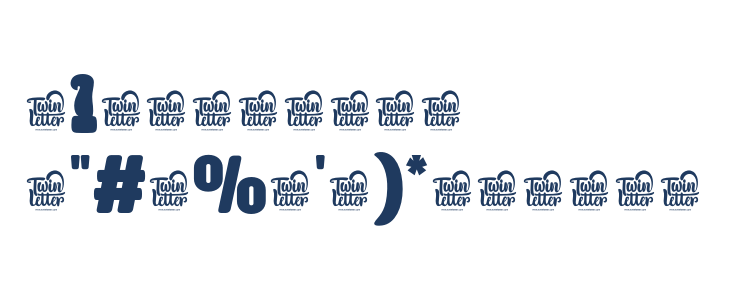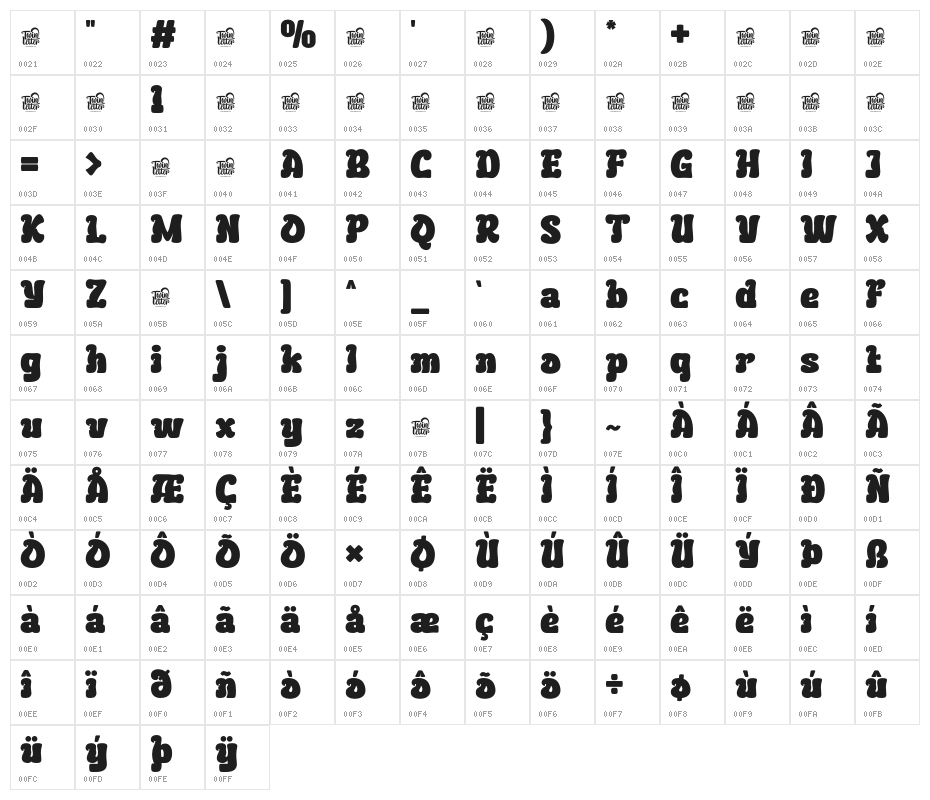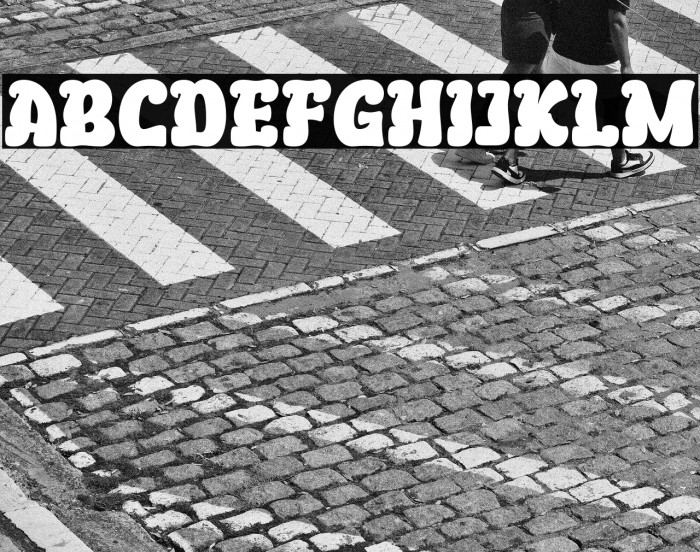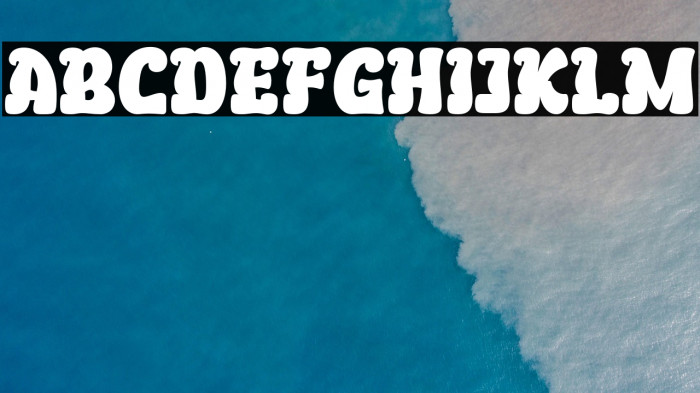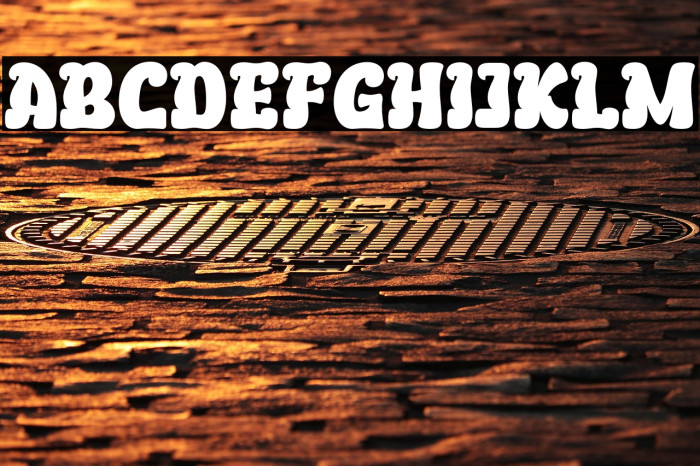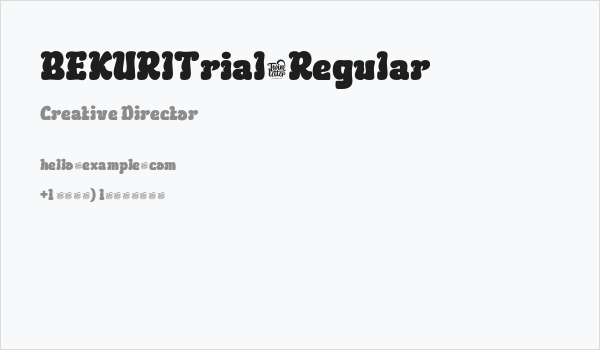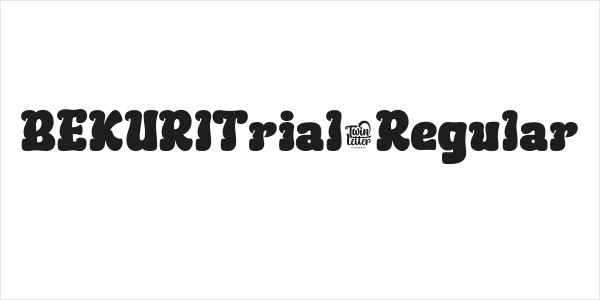
BEKURITrial-Regular Font
BEKURITrial-Regular Description
This font features a bold and playful design with thick, rounded characters that convey a sense of fun and whimsy. The letters are heavily weighted, giving them a strong presence, while the rounded edges soften the overall look, making it approachable and friendly. The uppercase and lowercase letters maintain a consistent style, with a slight variation in height and width that adds to the font's charm. The numbers and special characters are equally bold, ensuring they stand out in any design. This font is perfect for projects that require a lively and engaging typeface.
| Proposed Projects | Ideal for children's books, playful branding, posters, and creative advertising campaigns. |